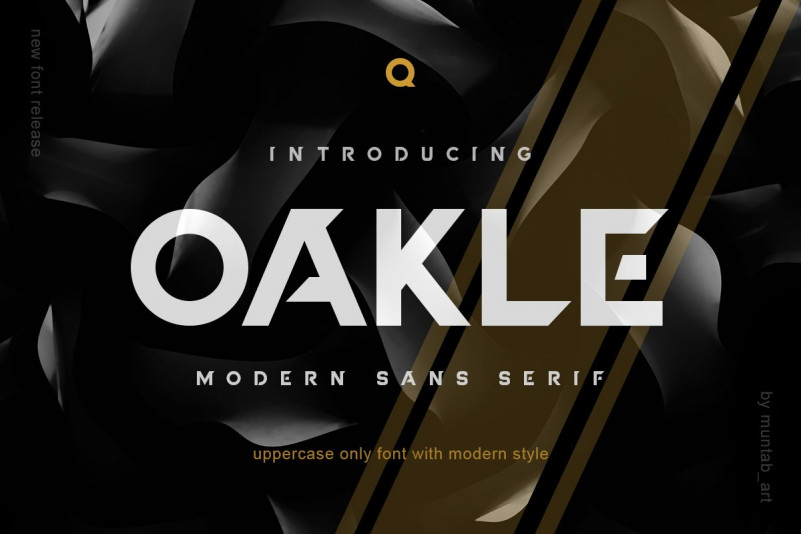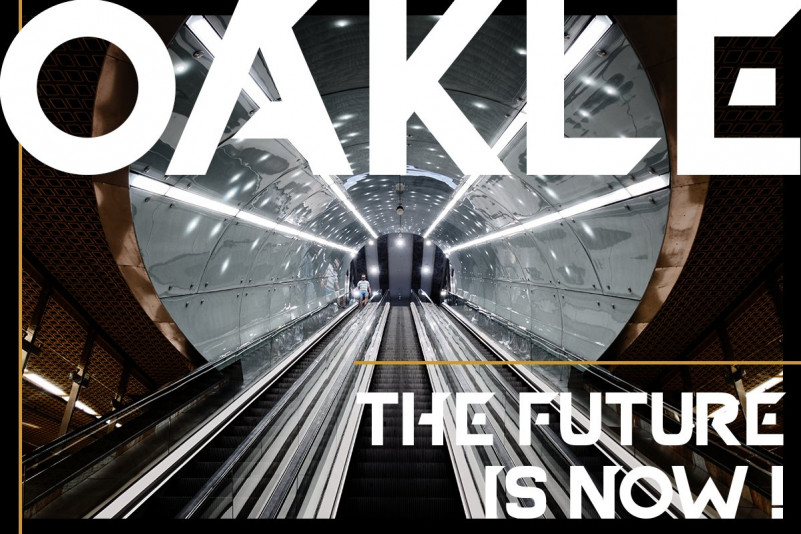
Oakle Font
Oakle fonts includes uppercase letters, numerals, a large range of punctuation. sans serif font with modern style. Created for poster, web design, branding, illustrations, badges and some other works.